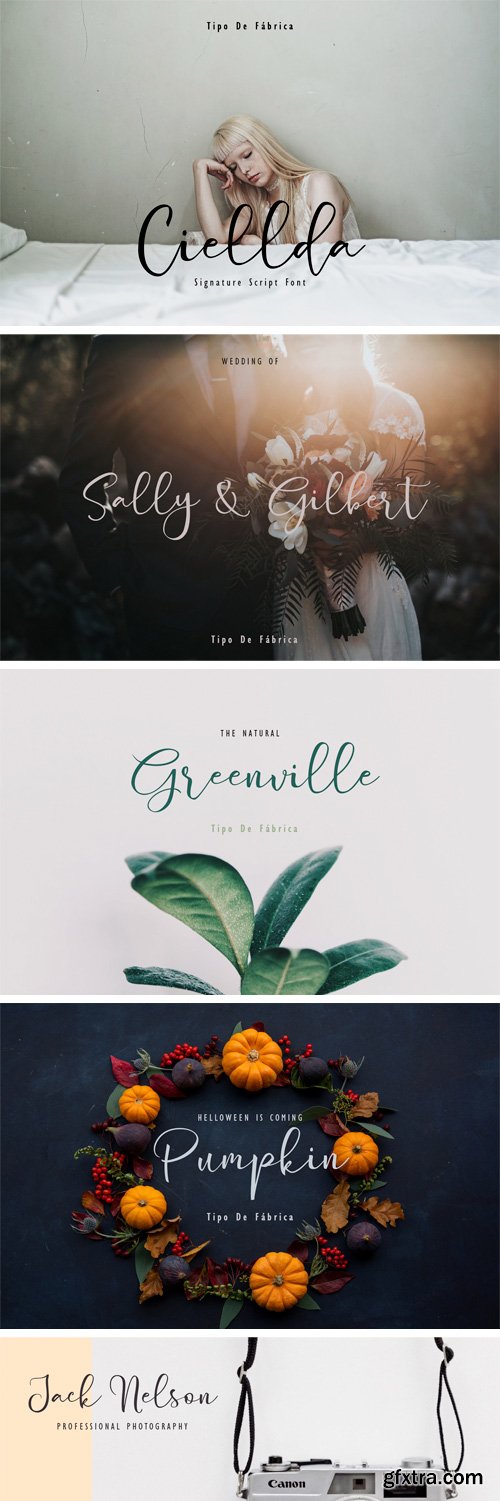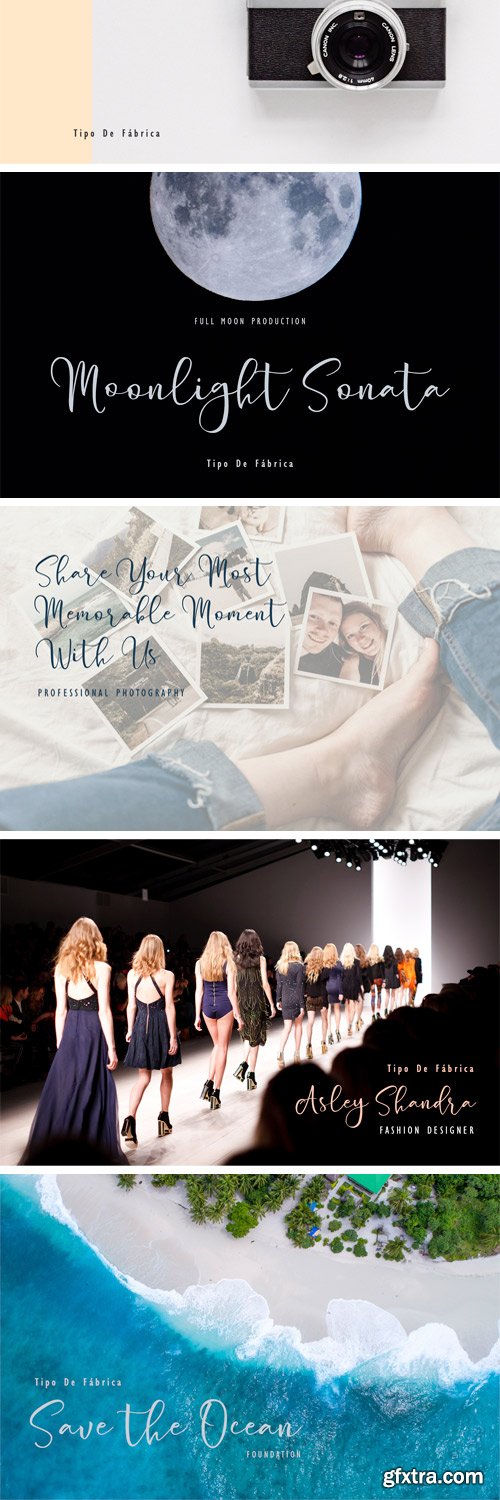
Ciellda Signature Script Font is our very first handlesttering font. We finally start font production with our solid team. We proudly present Ciellda to the world. Ciellda is a cute font handlettering thats fit for wedding project, fashion designer, photography service, instagram stories, natural product, coffee shop, branding.